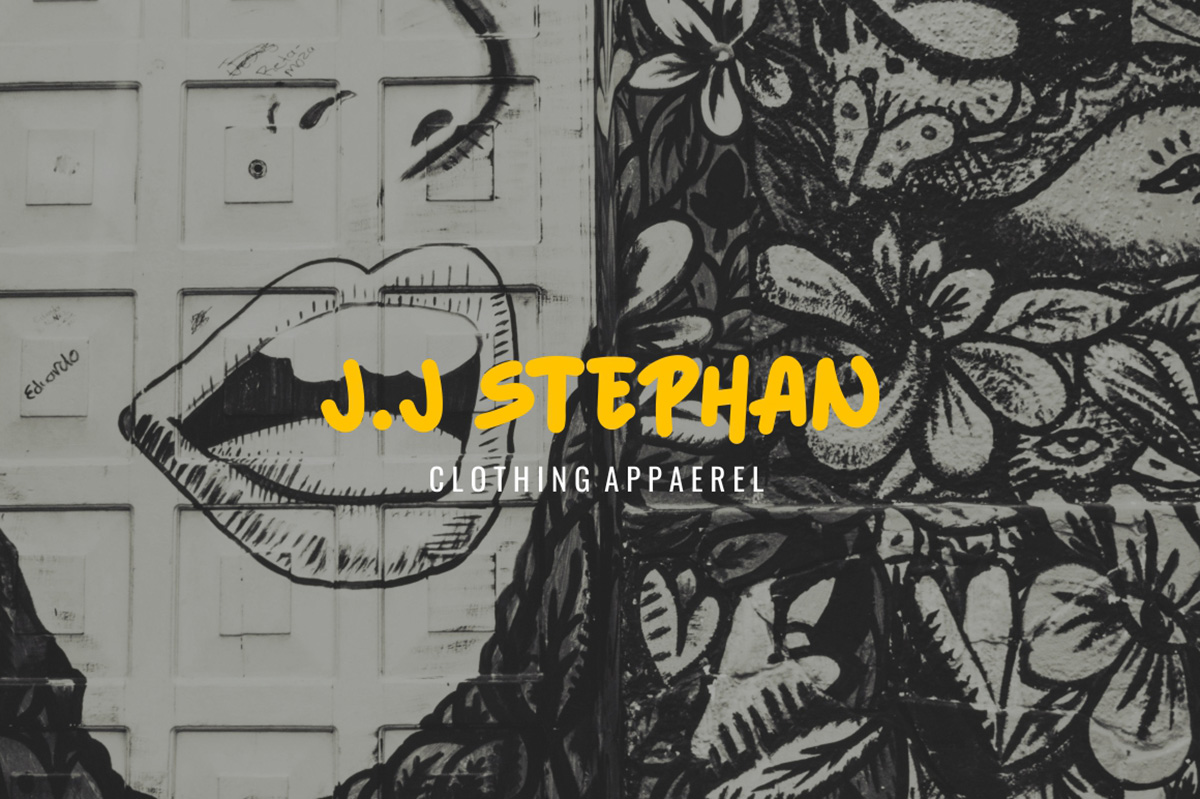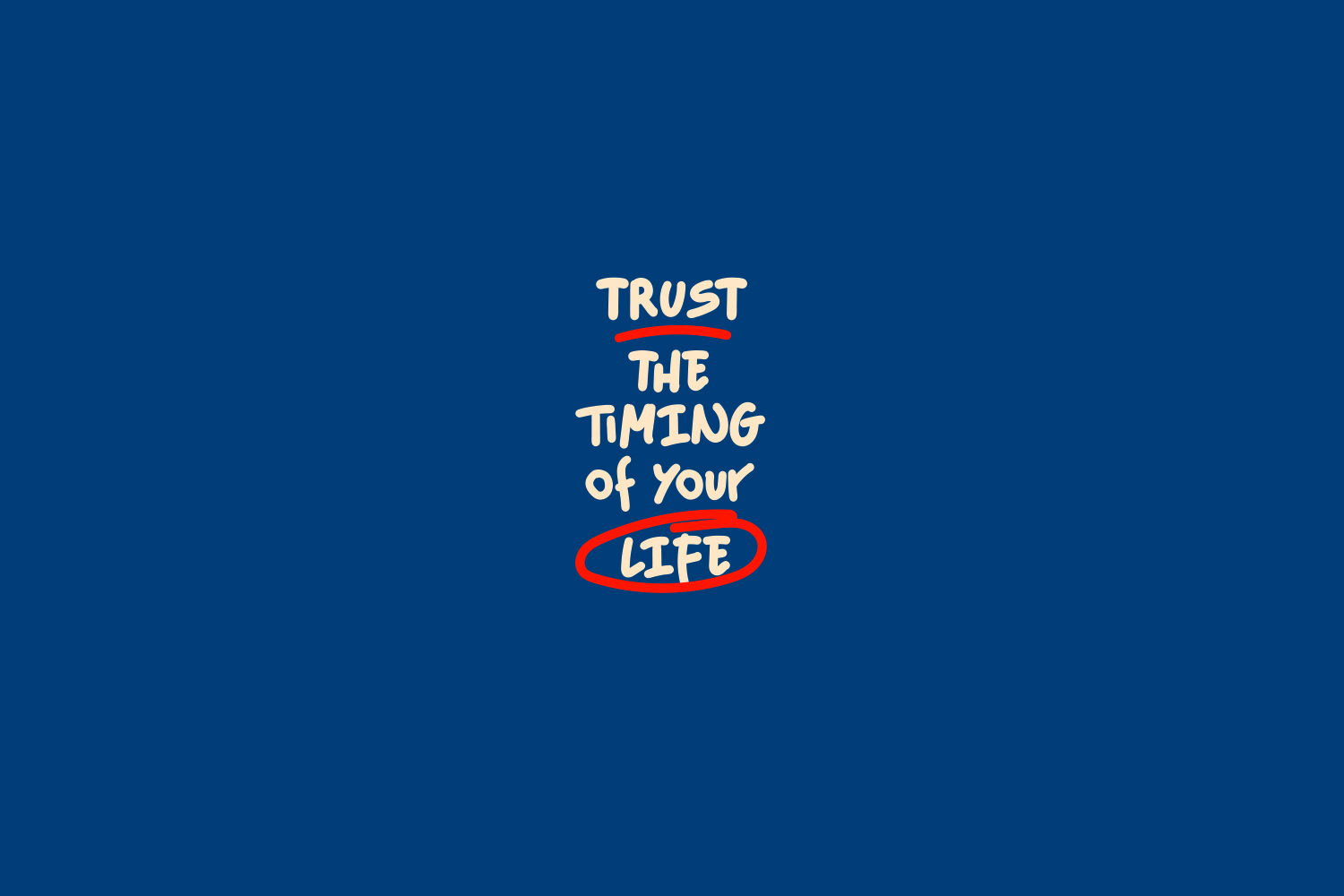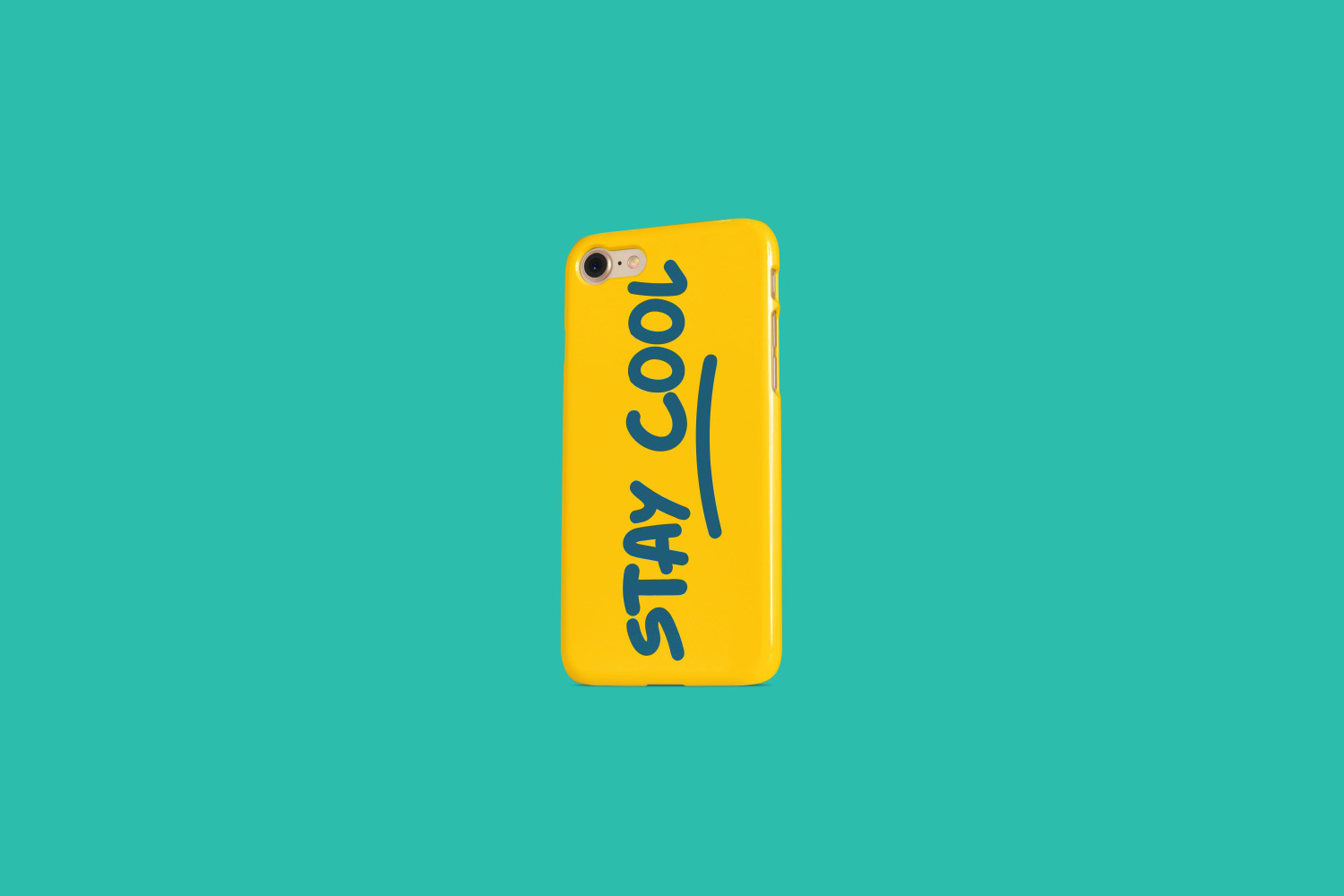
Lazy Boy Free Font
Lazy Boy Free Font is a bold and clean handwritten typeface perfect for any fun quirky design work! ideal for designing big impact merchandise, eye-catching social media & marketing posts, and attention-grabbing product packaging & branding projects. It includes a full set of uppercase, lowercase, numerals, punctuation, symbols, and support multilingual. This free typeface was designed by talented Reyrey Blue. If you like it don’t forget to check out the full version.